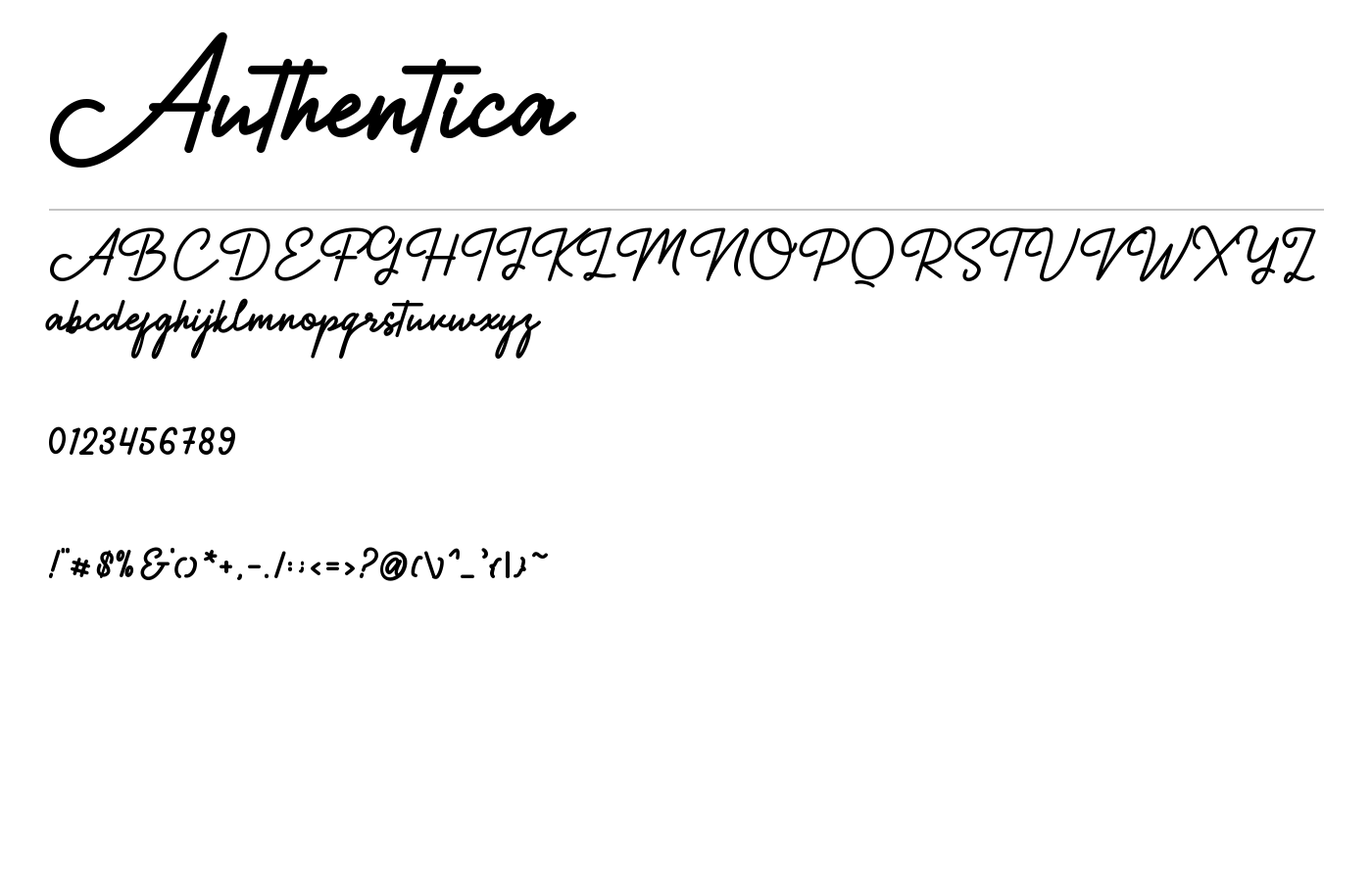
Authentica is an elegant script font with a smooth, flowing style that mimics natural handwriting. Its balanced strokes and slight slant create a personal and inviting feel, making it ideal for branding, invitations, and stylish editorial projects. This font combines a friendly personality with readability, perfect for adding a touch of authenticity and warmth.
Authentica Font
About Authentica Font